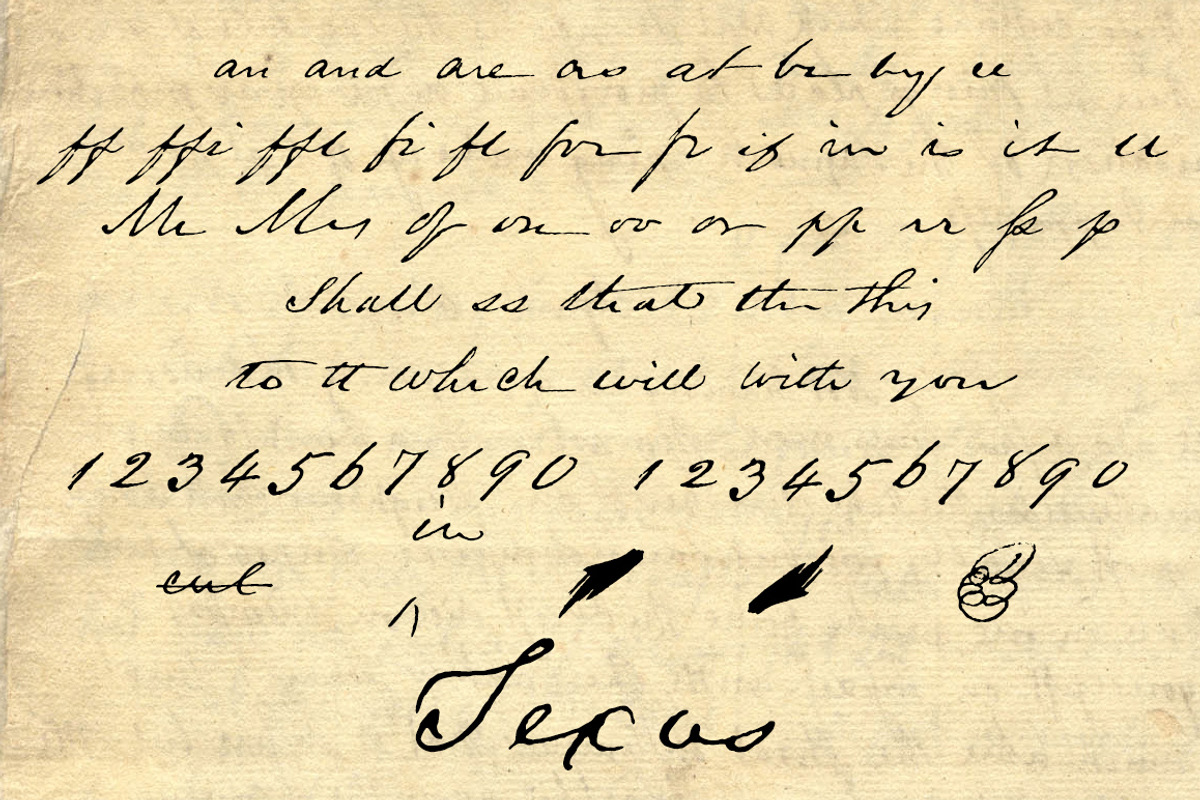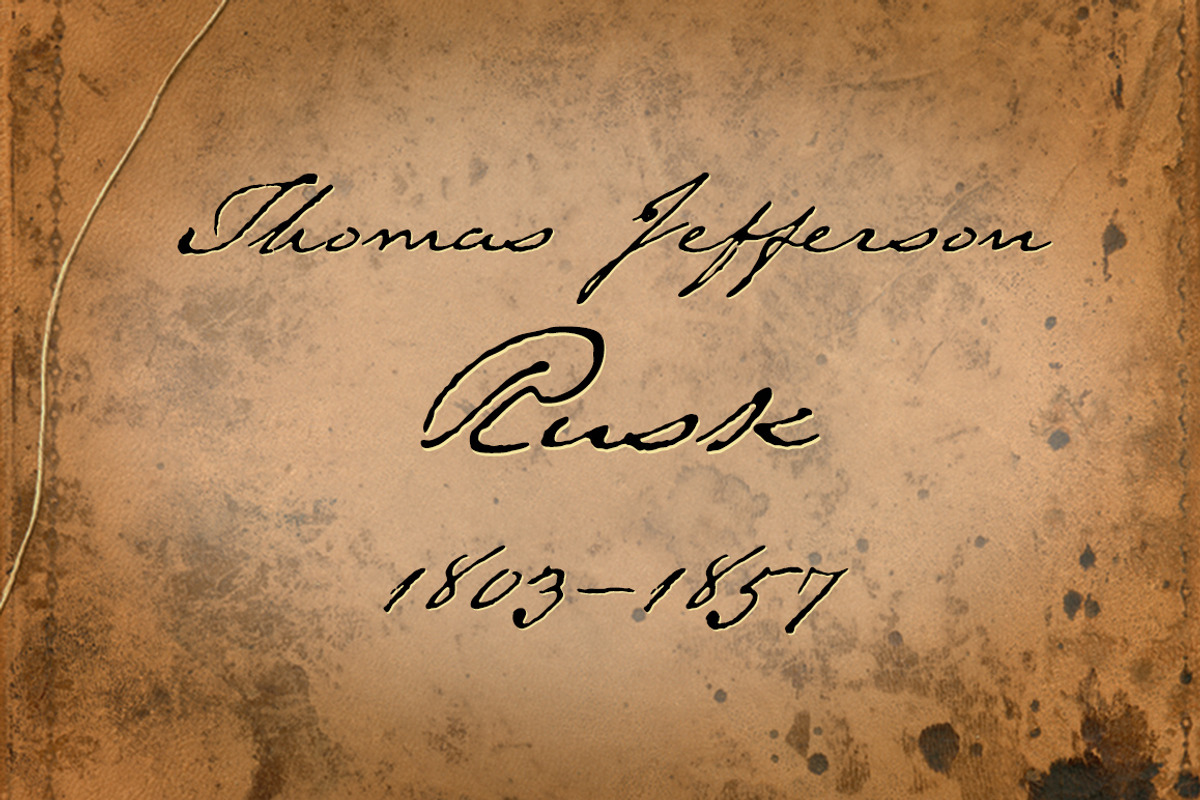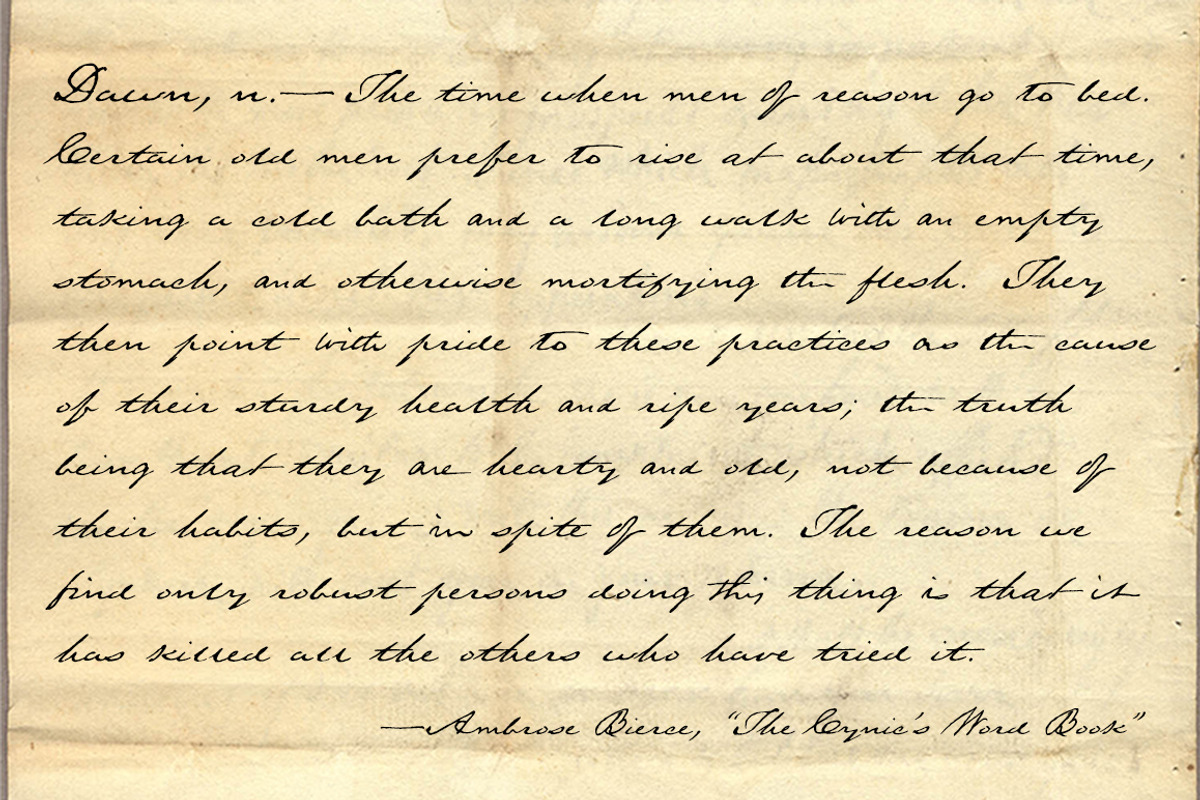
Texas Hero, the original old pen font.
Texas Hero, the original old pen font. by Three Islands Press is a font selected for branding, posters, packaging, typography.
- This font has more than 500 glyphs, including a full complement of discretionary ligatures, contextual alternates, old-style and lining figu
Why Texas Hero, the original old pen font. is worth a look
Texas Hero, the original old pen font. by Three Islands Press fits naturally into Branding, posters, packaging, typography.